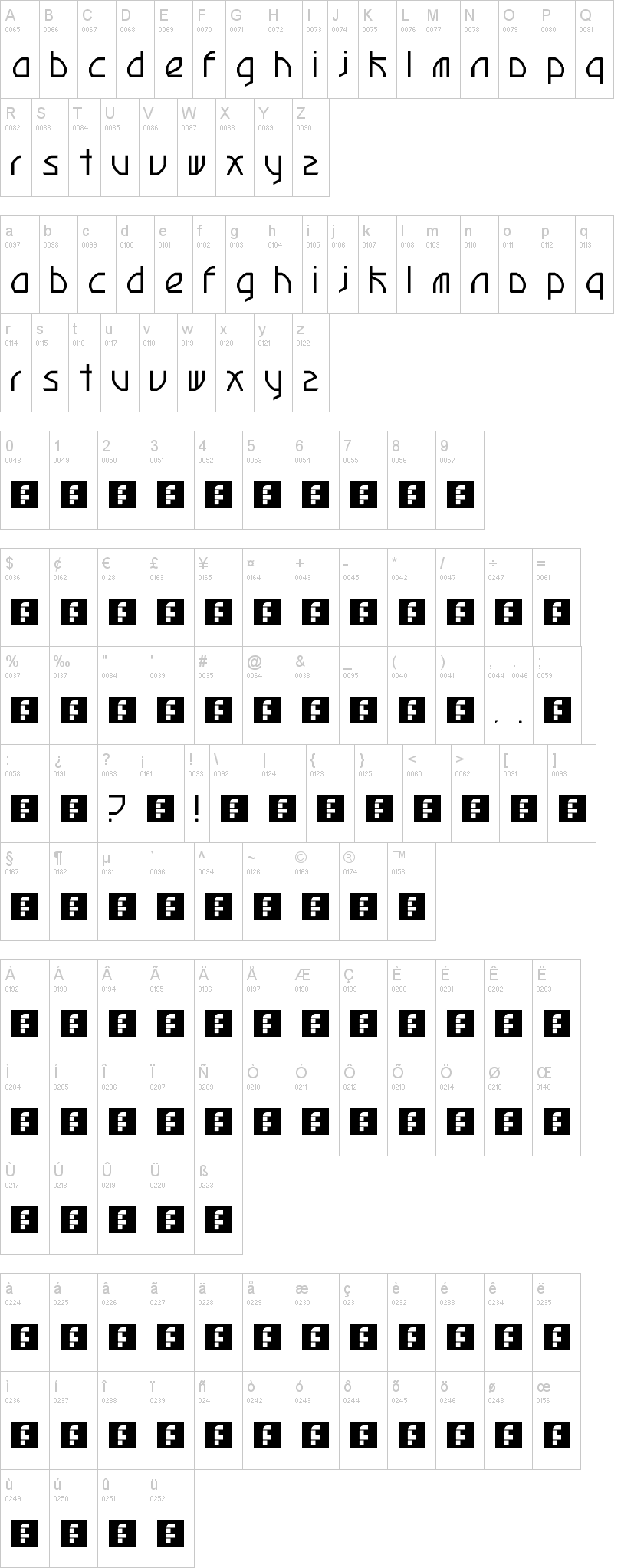
Шрифт .Ruba
"This is a very tricky font that took about a month to make. It is very rounded and includes some letters that go over eachother, hence the complicated-ness of production. It looks quite similar to the font used in the BBC Three logo, but wasn't based on it. It was instead based on Beijing, and French Electric."
Made in 2009.